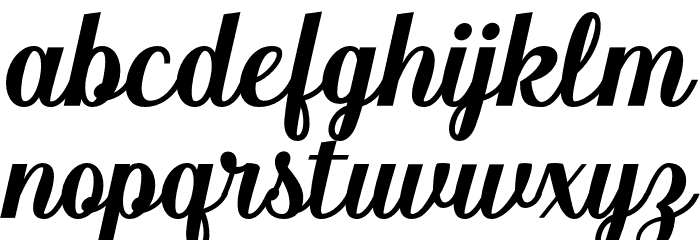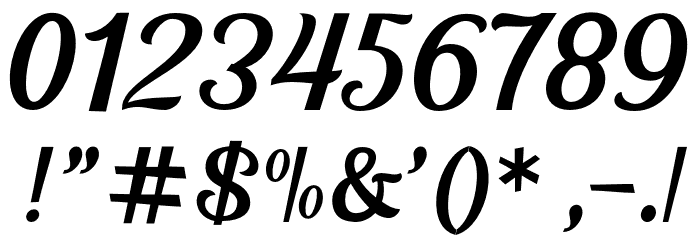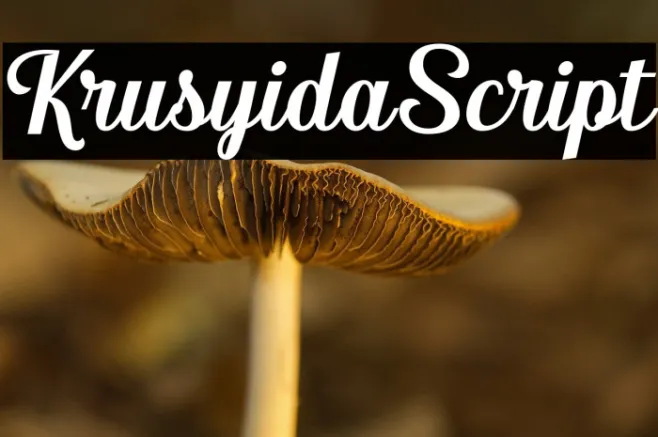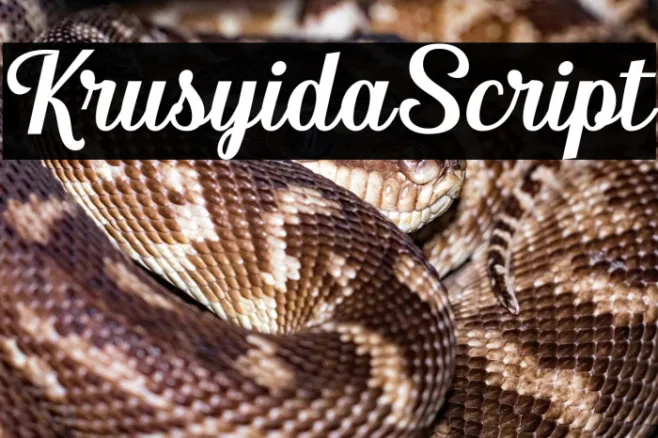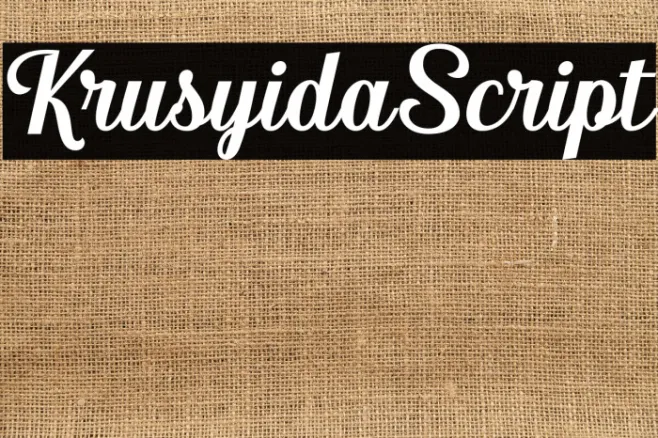
KrusyidaScript Font
This font exudes elegance and fluidity, characterized by its smooth, flowing script style. The uppercase letters are gracefully connected, with a slight slant that adds a dynamic feel. The lowercase letters maintain a consistent rhythm, enhancing readability while retaining a sophisticated appearance. The numerals are well-proportioned, complementing the overall aesthetic. Special characters are seamlessly integrated, maintaining the font's cohesive look. The strokes are moderately thick, providing a balanced contrast that ensures clarity without sacrificing style.
An elegant and fluid script font with graceful, connected letters.
- Proposed Projects: Ideal for wedding invitations, elegant branding, greeting cards, and upscale packaging.
- Overall Style: Elegant
- Use Case: Logos, Invitations, Branding